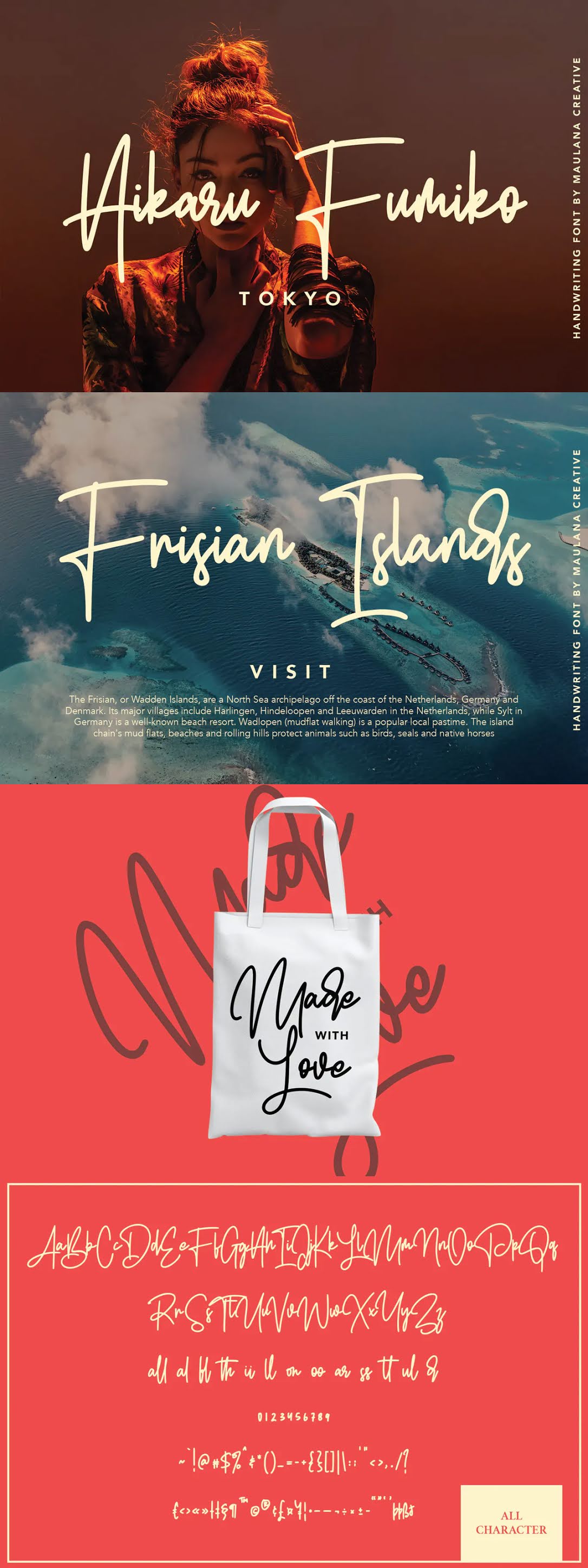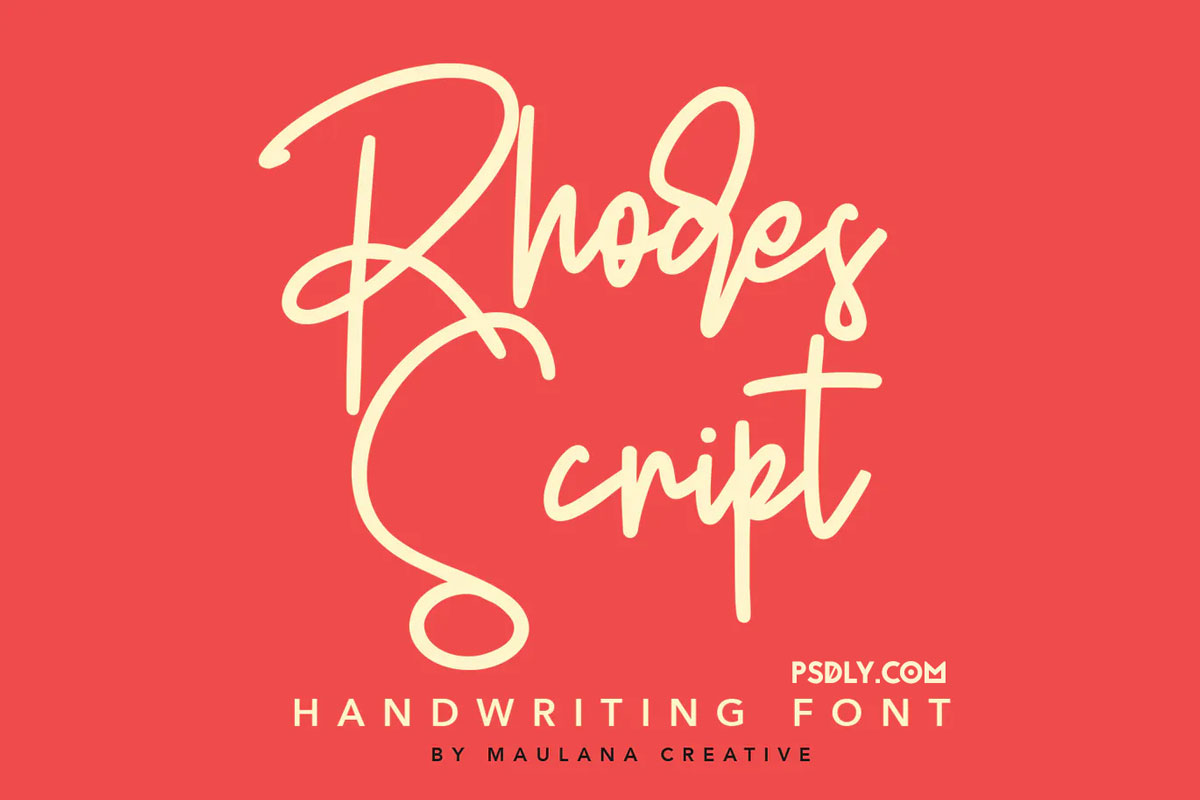
Rhodes Modern Script Signature Font
Free Download Rhodes Modern Script Signature Font. Give your designs an authentic handcrafted feel. “Rhodes” is perfectly suited to stationery, logos, and much more.
• Ligature
• Multilingual Support